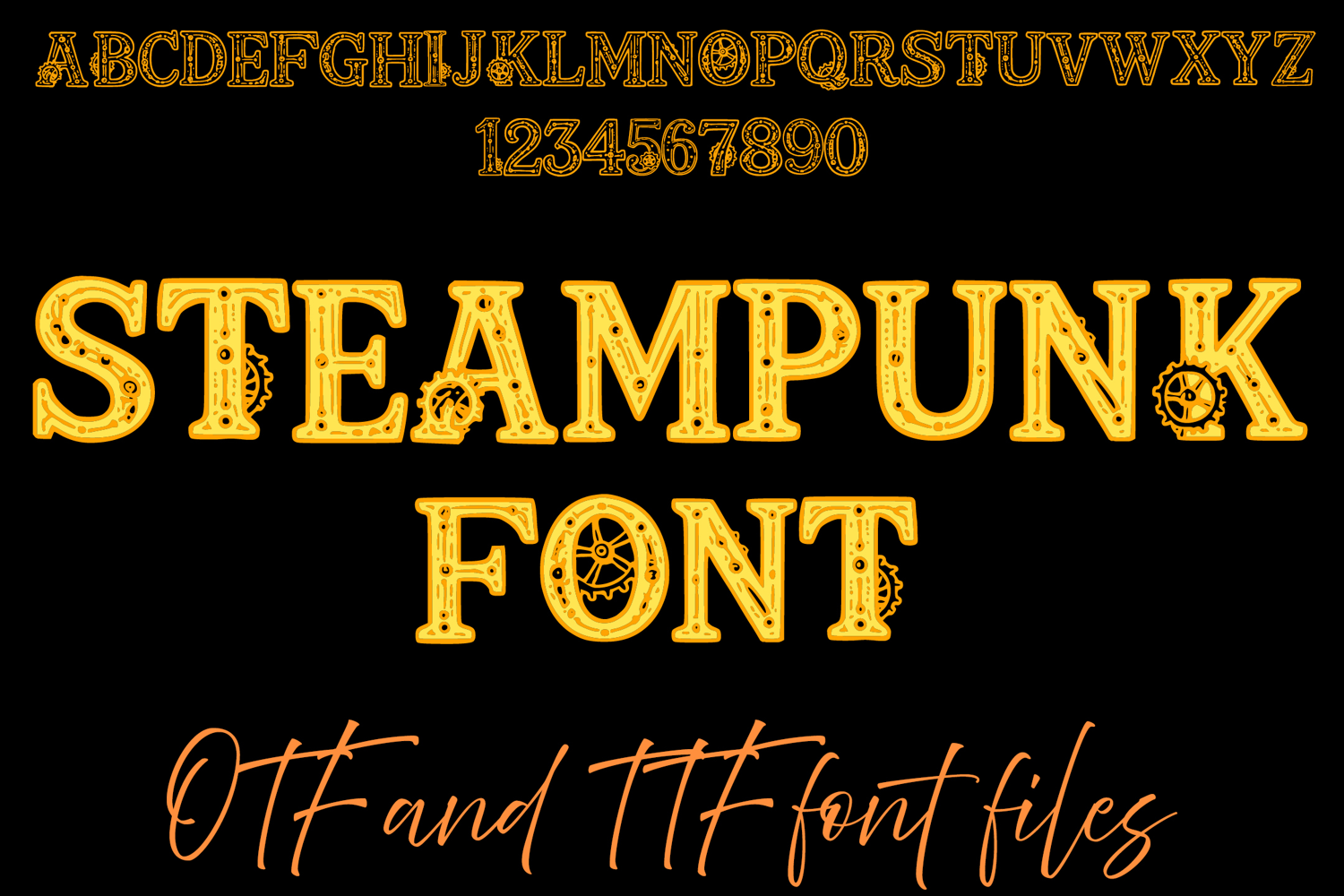
Steampunk Victorian Lettering ABC Text Font Alphabet OTF Type IllustrationÂ
A vintage style font where you can create your own words and colour them to your vision!